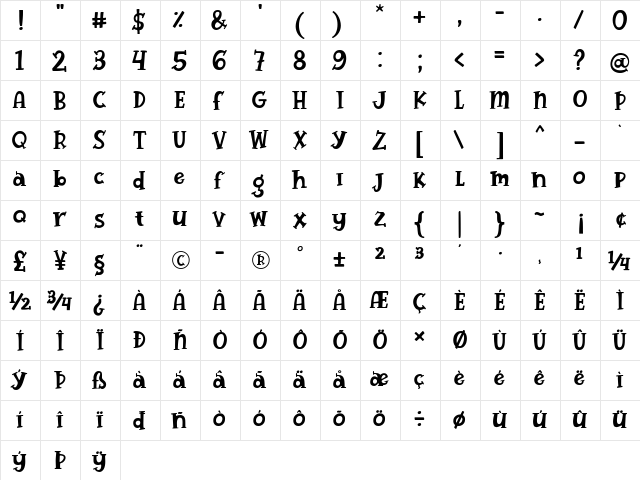
Theola Kids Regular
| Foundry | 7NTypes |
| Designer | Keithzo; Situjuh Nazara |
Design Context for Theola Kids Typeface
Theola Kids has an approachable, lighthearted character — its loose, expressive forms are well-suited to children's content, casual branding, and fun-first design.
Great for children's books, toy packaging, family event branding, and casual consumer-facing design.
Font Pairing: Pairs well with a rounded or humanist sans for body copy, maintaining the friendly tone without relying on Theola Kids to carry extended reading.
Pro Tip: Avoid using Theola Kids for long passages of text — it works best for headlines, labels, and short calls to action.